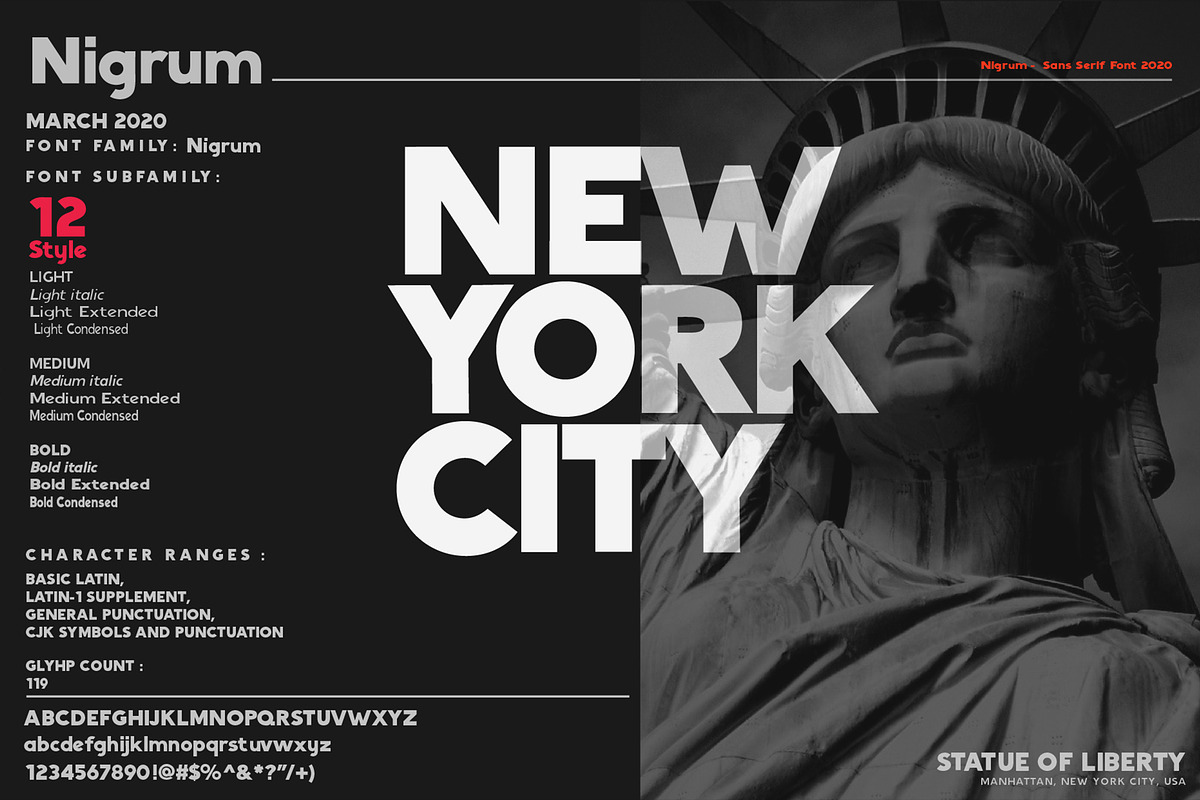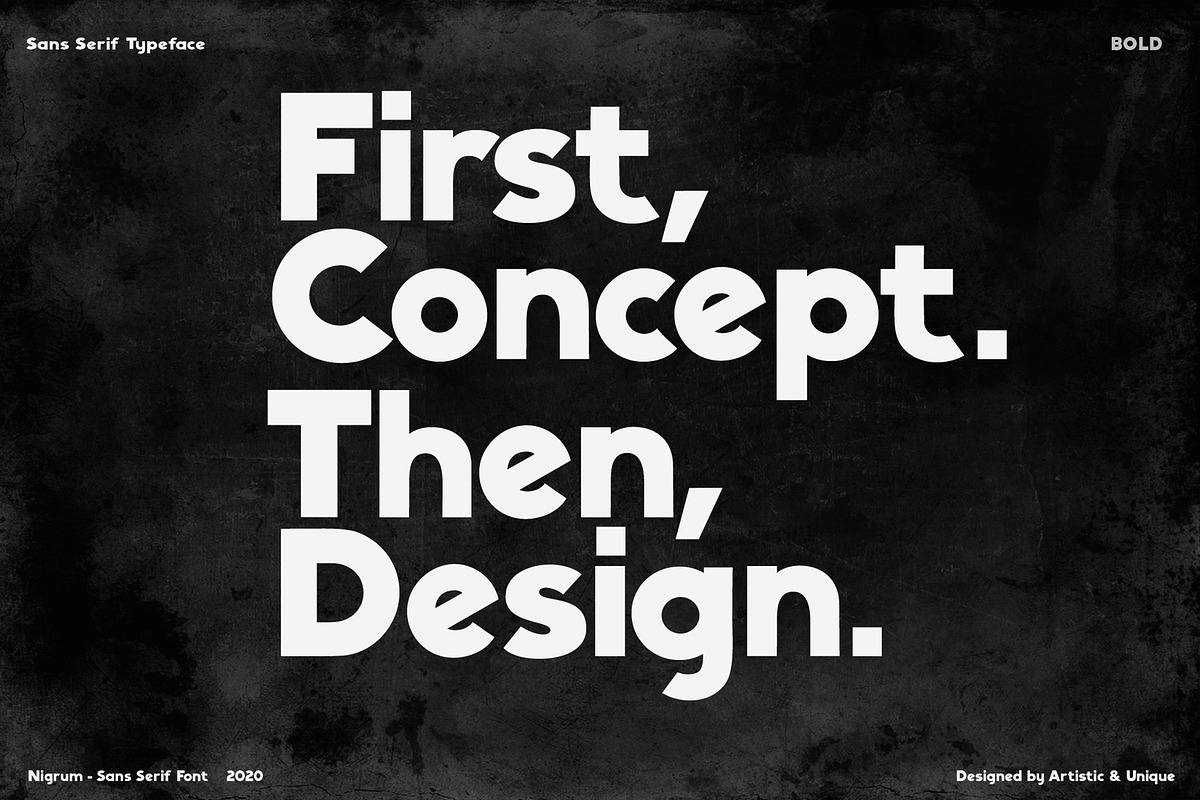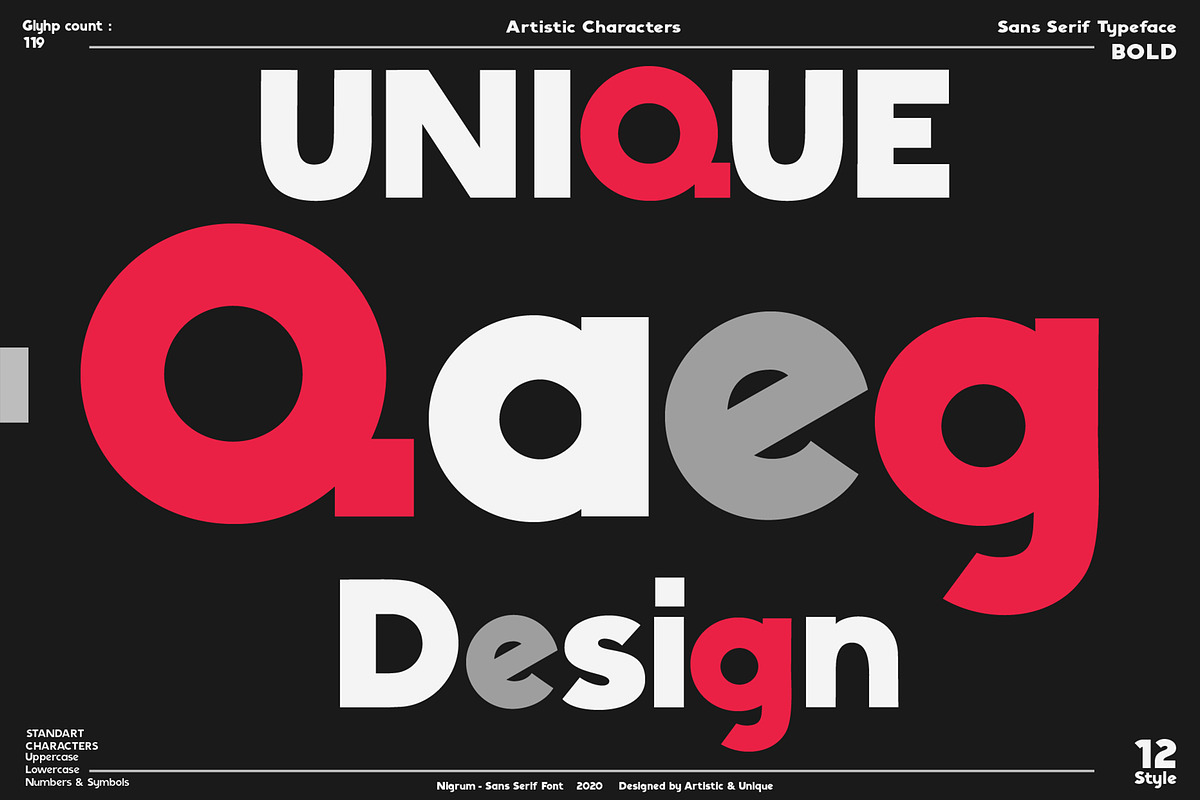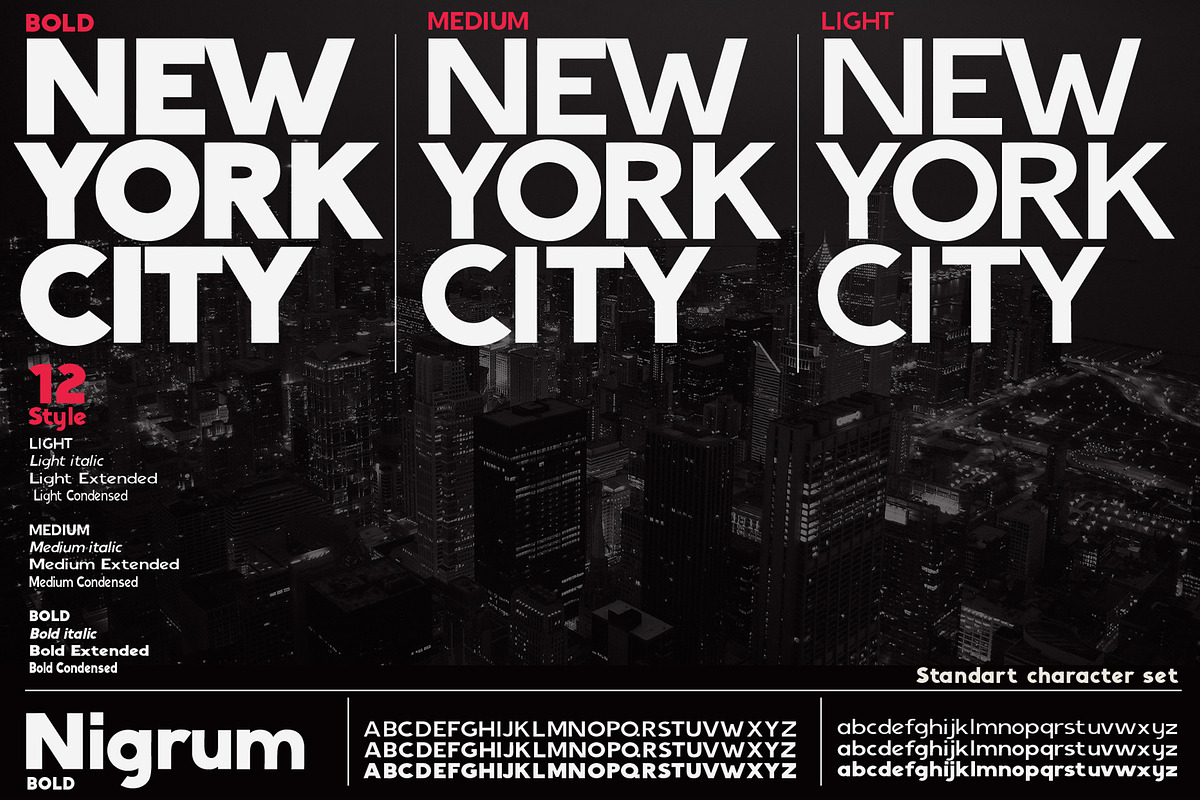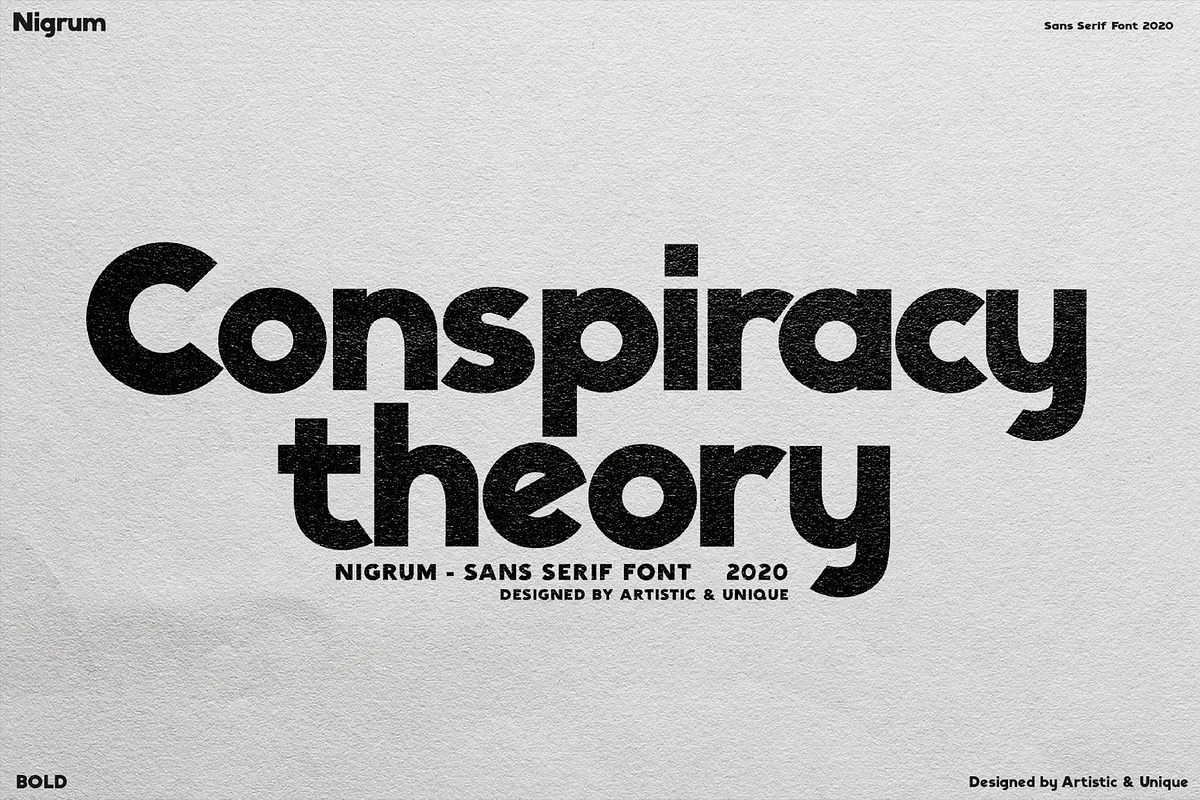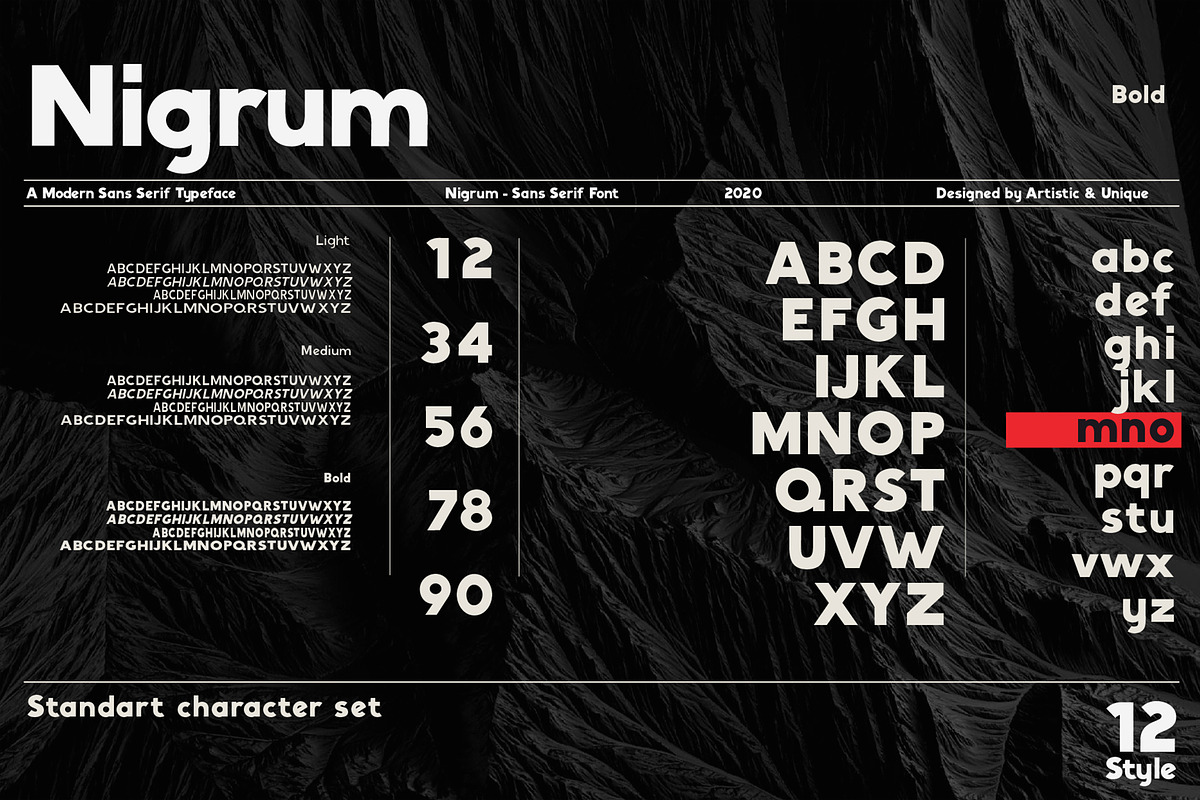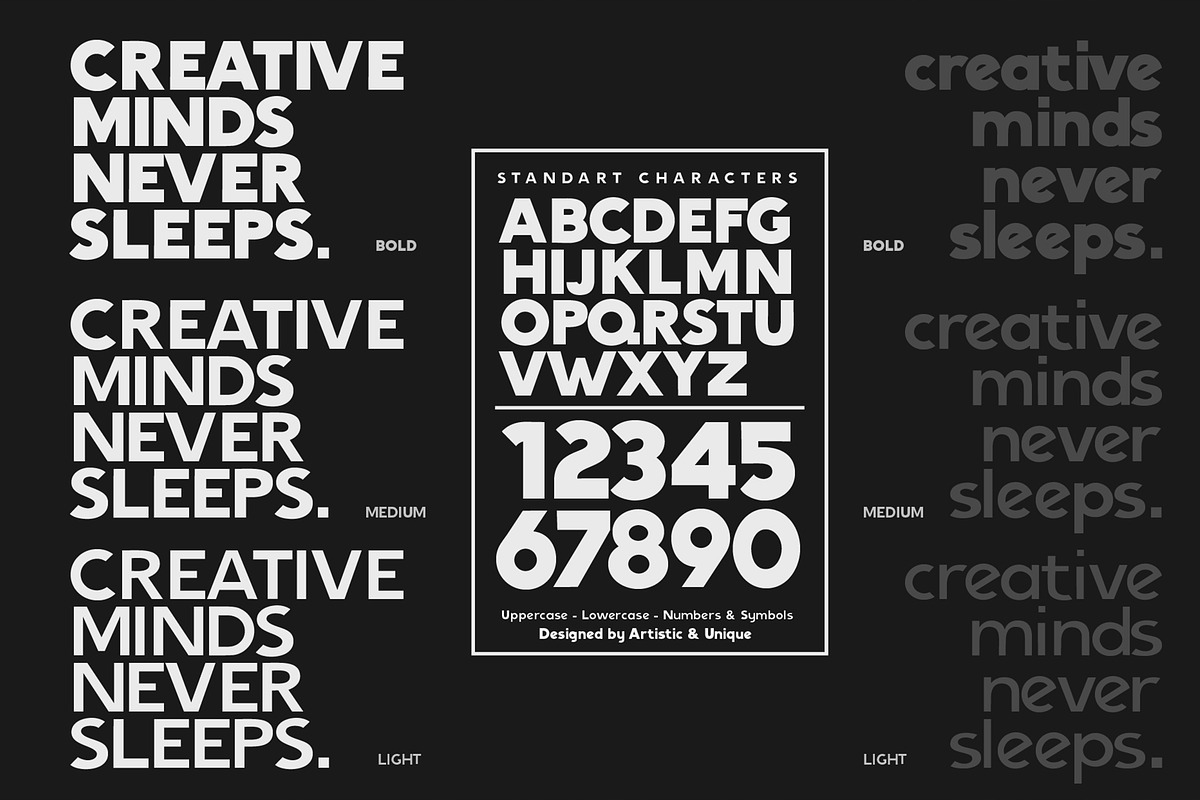
Nigrum - Sans Serif font Family
Nigrum font family, a modern sans serif family designed by Artistic and Unique. Nigrum, with its 12 styles and italic versions, can even be used for body texts and can be added to magazines, websites and advertisements.
The bold characters of Nigrum font are absolutely perfect for sports, nutrition brands, movie titles, magazines, brands, posters, logo designs, packaging designs, websites and more!
This font can meet your needs in all modern and classic creative projects.
With this font you can create your unique designs.
Nigrum - Sans Serif font Family by Artistic & Unique fits naturally into Branding, posters, packaging, typography.